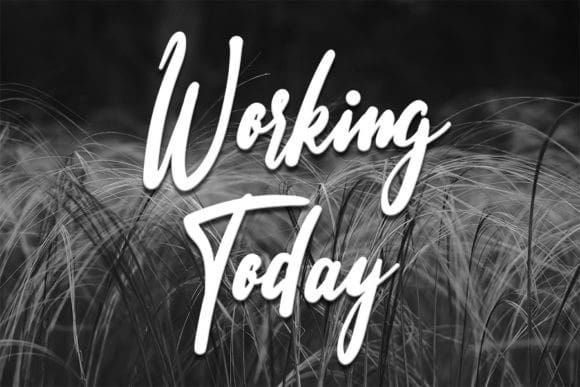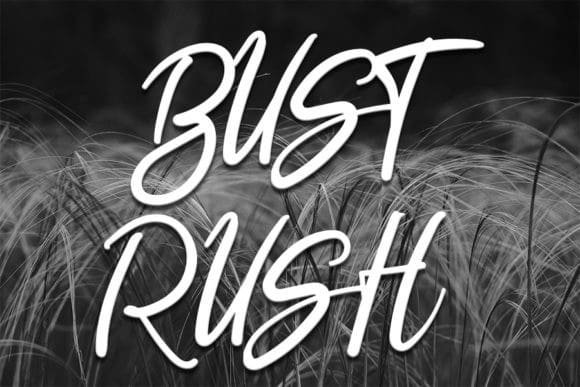
Mode Moon Font
Mode Moon Font is a relaxed and flowing handwritten font. Fall in love with its simple yet stylish touch and bring each of your inspired ideas to life!